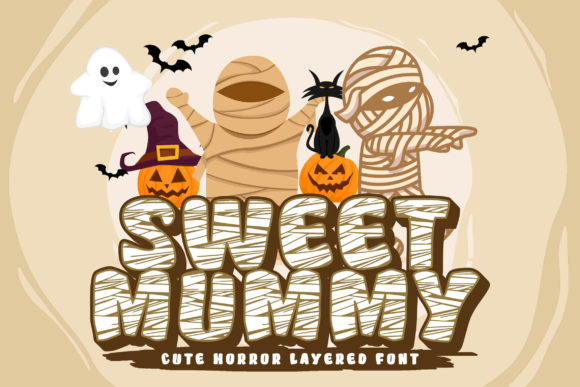
Unleash the Sweet Mummy Horror Font, a Typographic Masterpiece for Sci-Fi Enthusiasts
Embark on an extraordinary typographic journey with Sweet Mummy Horror, a captivating display font that oozes creativity and boldness. Bold, unique, and utterly captivating, this font is a visual feast for anyone seeking to infuse their projects with a touch of mystery and otherworldly charm.
Journey to the heart of the cosmos with Sweet Mummy Horror, the font that transports you to uncharted galaxies and invites you to explore the depths of your imagination. Its intricate strokes and eerie aesthetic are a testament to the power of typography, reaching beyond mere aesthetics to stir the soul and ignite the creative spark.
With Sweet Mummy Horror, your words take on a new life, echoing through the pages of your sci-fi novels, captivating readers with its distinctive flair. Whether you're crafting spine-chilling tales of extraterrestrial encounters or delving into the mysteries of time travel, this font is your ultimate storytelling companion.
So, dive headfirst into the world of Sweet Mummy Horror, where imagination knows no bounds. Let its dark, mysterious strokes guide you through uncharted territories, leaving a trail of curiosity and wonder in your wake. Embrace the power of typography and let your stories take flight.